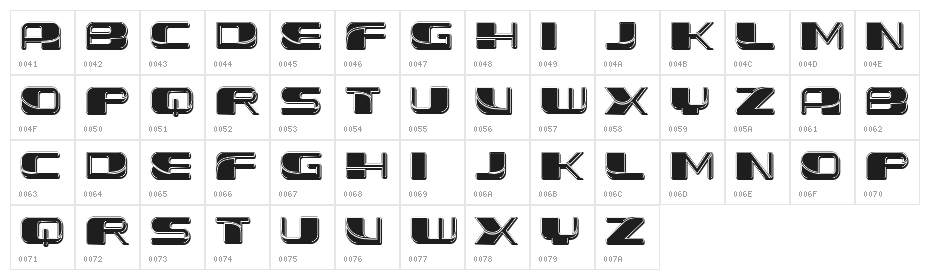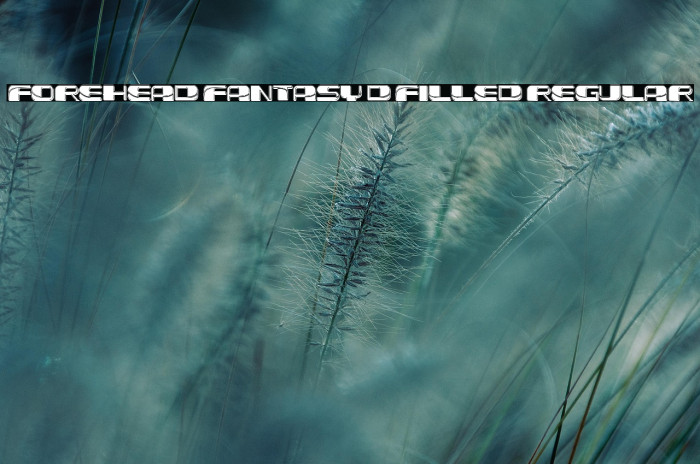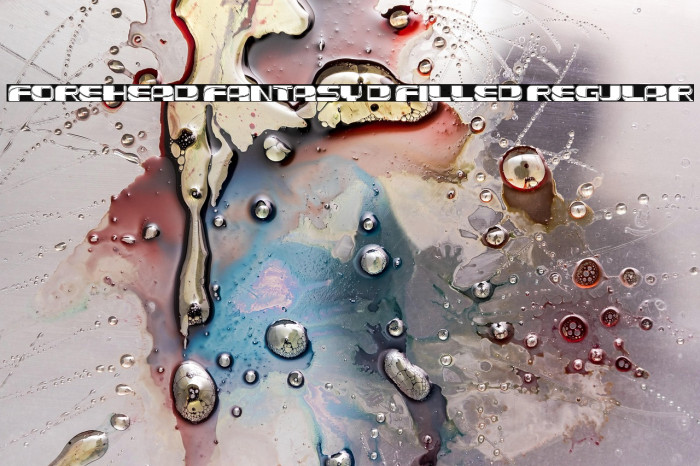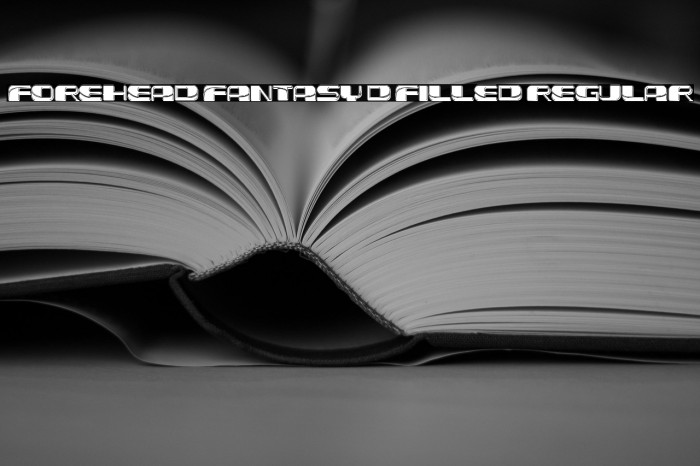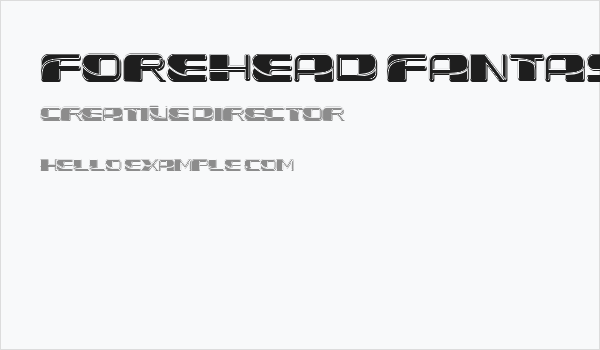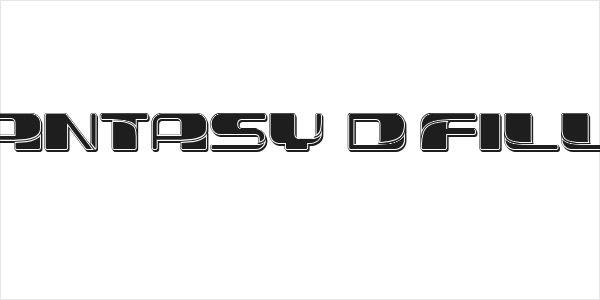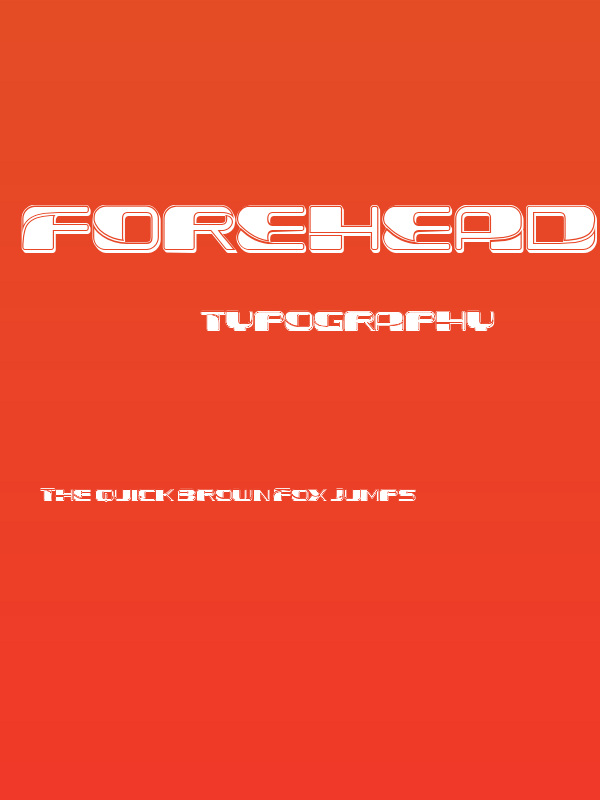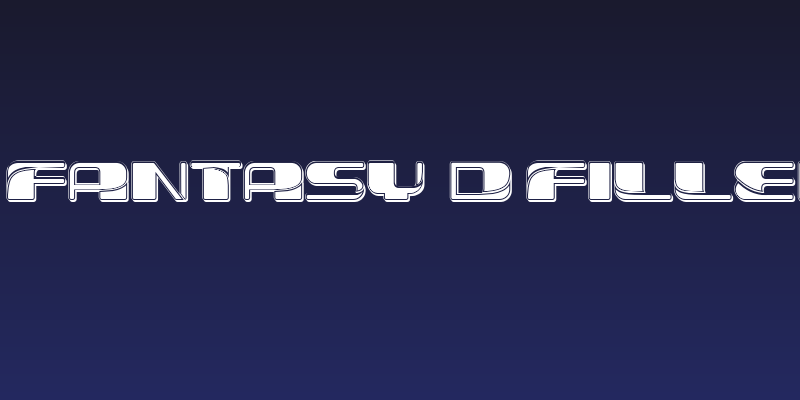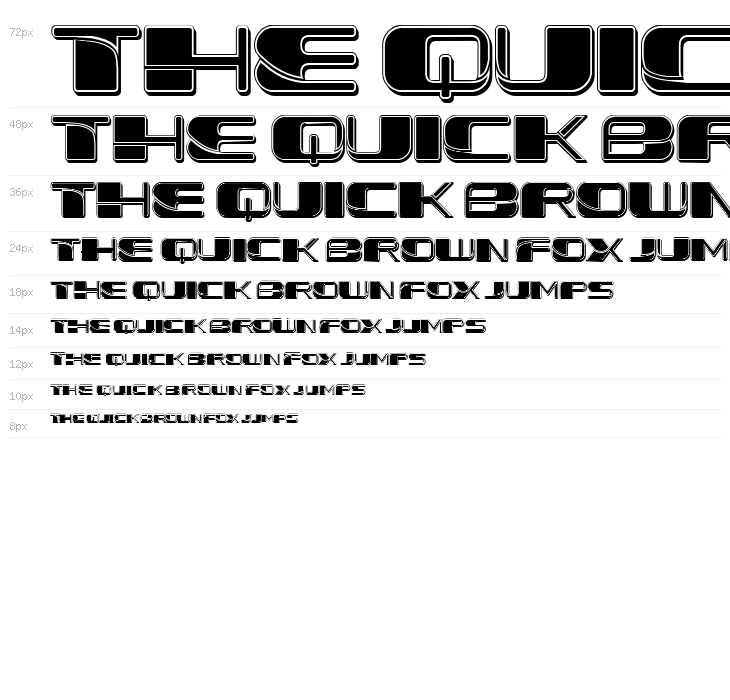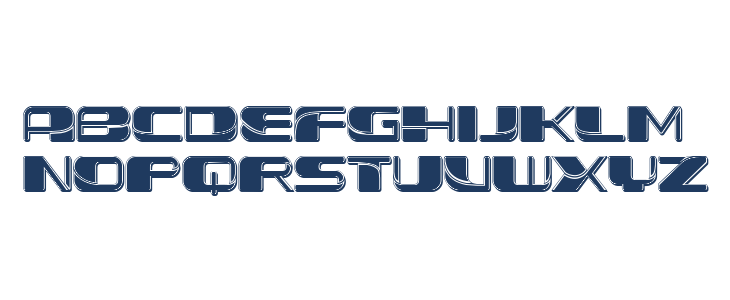
Forehead Fantasy 3D Filled Regular Font
Forehead Fantasy 3D Filled Regular Description
This font features a bold, futuristic design with a 3D effect that gives each character a sense of depth and dimension. The letters are constructed with a combination of thick and thin strokes, creating a dynamic and visually striking appearance. The geometric shapes and sharp angles contribute to its modern aesthetic, making it ideal for projects that require a strong and impactful visual presence. The font maintains a consistent width across characters, ensuring a uniform look. Its unique style is perfect for creative and innovative designs.
| Proposed Projects | Ideal for sci-fi themed projects, video game titles, posters, and branding that requires a modern and edgy look. |